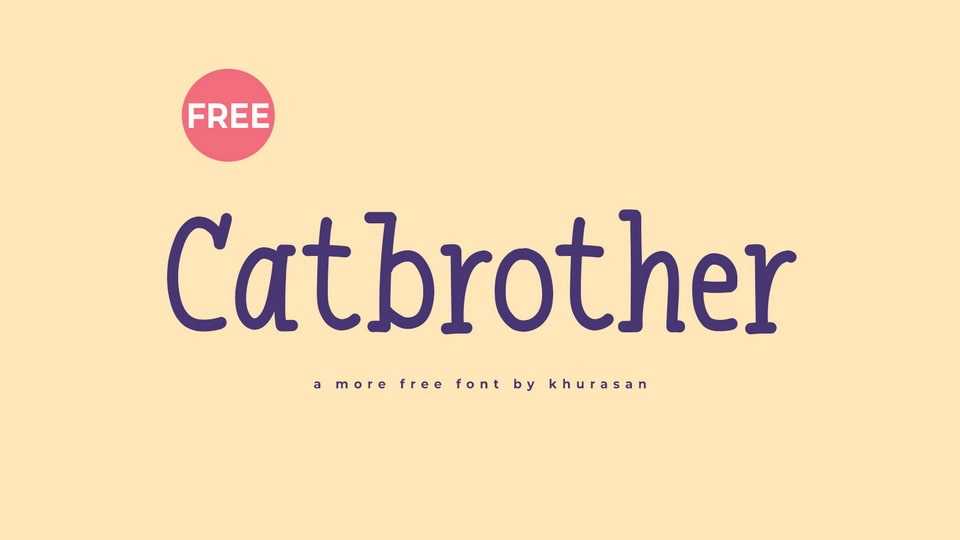
Download Catbrother font, a whimsical and cute handwritten doodle typeface that transforms your text into a playful canvas of creativity. Catbrother font captures the spontaneous charm of hand-drawn doodles, offering a delightful mix of simplicity and fun that adds a touch of lighthearted charm to your designs.